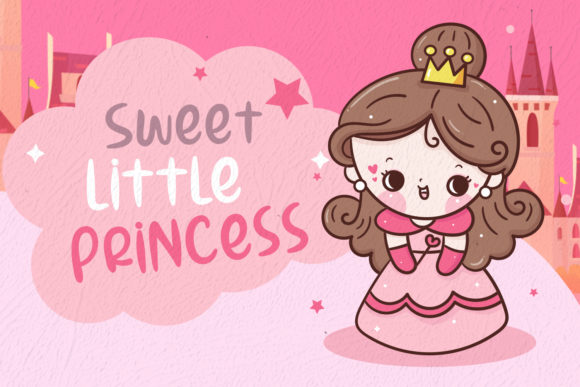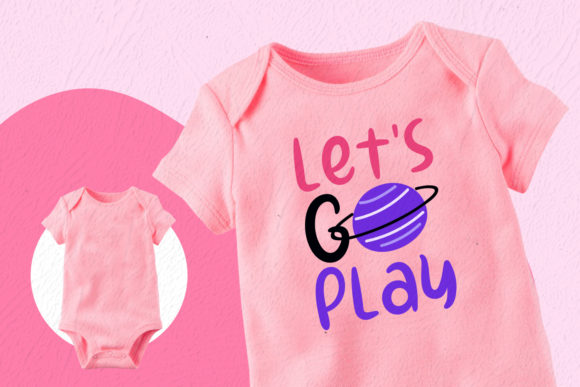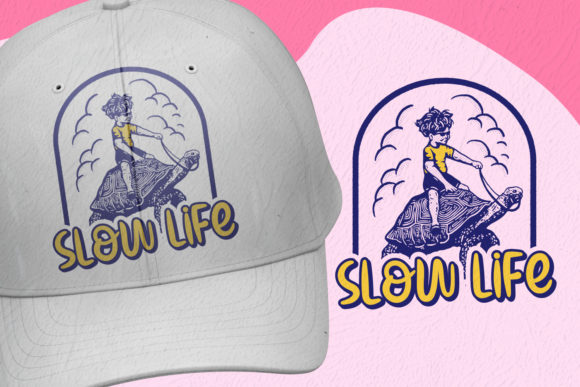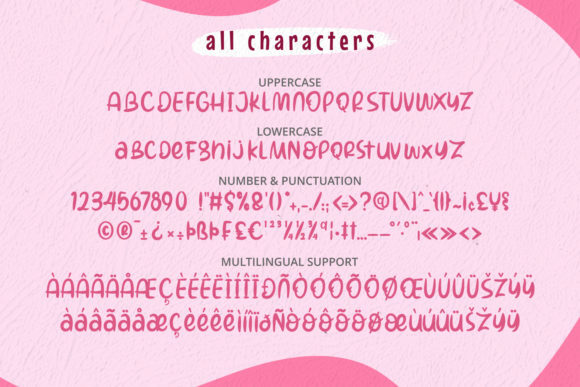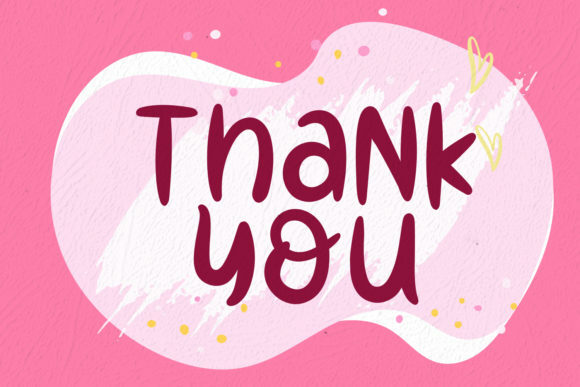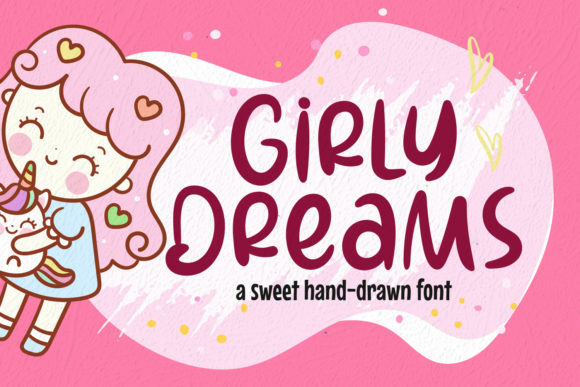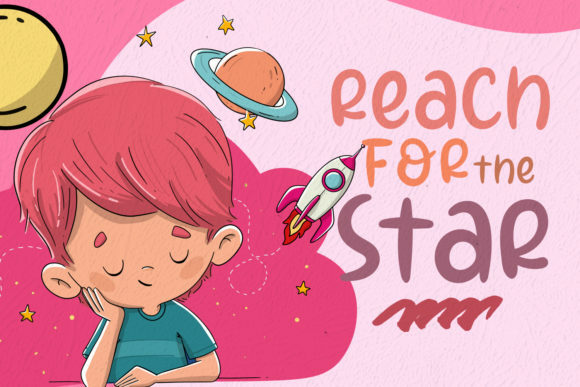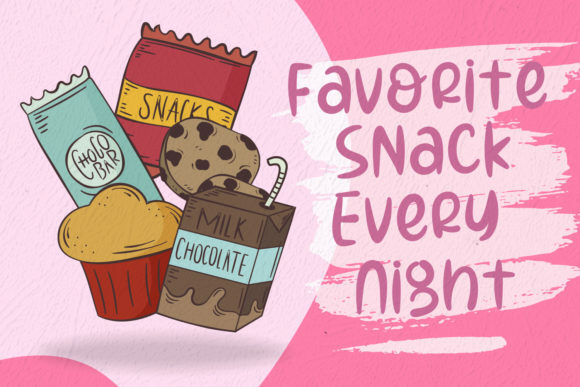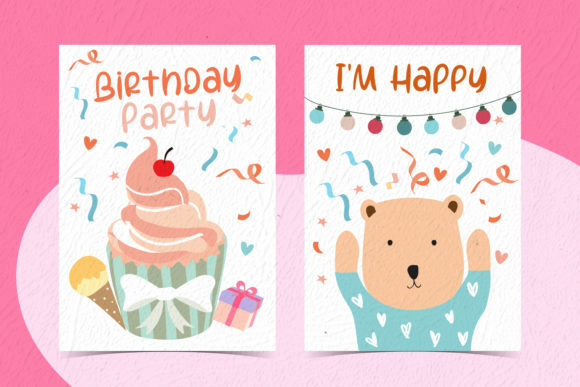
Girly Dreams Font
About Girly Dreams Font
Girly Dreams is indeed a cute and casual handwritten font that can bring a friendly and charming feel to your creative projects. With its unique style and playful vibe, this font is perfect for various purposes, from social media posts to DIY projects. Here are some ways you can use the Girly Dreams font to enhance your designs:
1. Social Media Posts: Make your Instagram, Facebook, or Pinterest posts stand out with the Girly Dreams font. Use it for captions, quotes, or to highlight important messages in your visuals. The casual and friendly feel of the font will add a touch of charm to your social media content.
2. Handmade Cards and Invitations: Create adorable and personalized cards and invitations using the Girly Dreams font. Whether it’s for birthdays, baby showers, or special occasions, this font will add a delightful and whimsical touch to your designs. Use it for headings, names, or small decorative elements to make your cards truly unique.
3. DIY Projects and Crafts: Incorporate the Girly Dreams font into your DIY projects and crafts. Whether you’re creating hand-lettered signs, personalized gifts, or scrapbooking pages, this font will add a playful and casual touch. Use it to write quotes, titles, or to embellish your designs with cute doodles and icons.
4. Blog and Website Design: Make your blog or website more engaging with the Girly Dreams font. Use it for headings, titles, or navigation menus to create a warm and inviting atmosphere. The handwritten style of the font will give your website a personal touch and make it stand out from the crowd.
5. Quotes and Typography Art: Create beautiful typography art and quote designs using the Girly Dreams font. Write inspiring quotes, motivational messages, or simply play around with different lettering styles. The casual and friendly feel of the font will bring a sense of warmth and positivity to your typography creations.
6. Personal Branding: Use the Girly Dreams font to enhance your personal branding. Whether you’re a freelancer, blogger, or creative entrepreneur, this font can add a touch of personality to your logo, business cards, or social media graphics. Its friendly and approachable style will help you connect with your audience.
Remember to experiment with different sizes, colors, and combinations with other fonts to create unique and visually appealing designs. Let the Girly Dreams font be your go-to choice for adding a cute and casual handwritten touch to your creative projects!